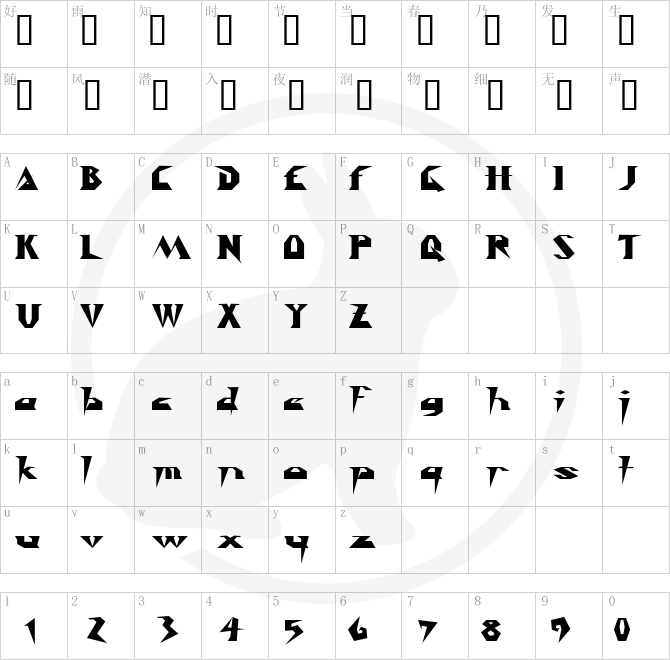
- Font Name:Y2Kill
Y2Kill.ttf is a very beautiful artistic font, Y2Kill.ttf is widely used in the design and printing of various books and pictures,Y2Kill.ttf has a strong visual impact,Y2Kill.ttf is a commonly used font in newspapers, magazines and books, and is used in posters, e-commerce Poster design, store design, logo design, font design and other fields.Y2Kill.